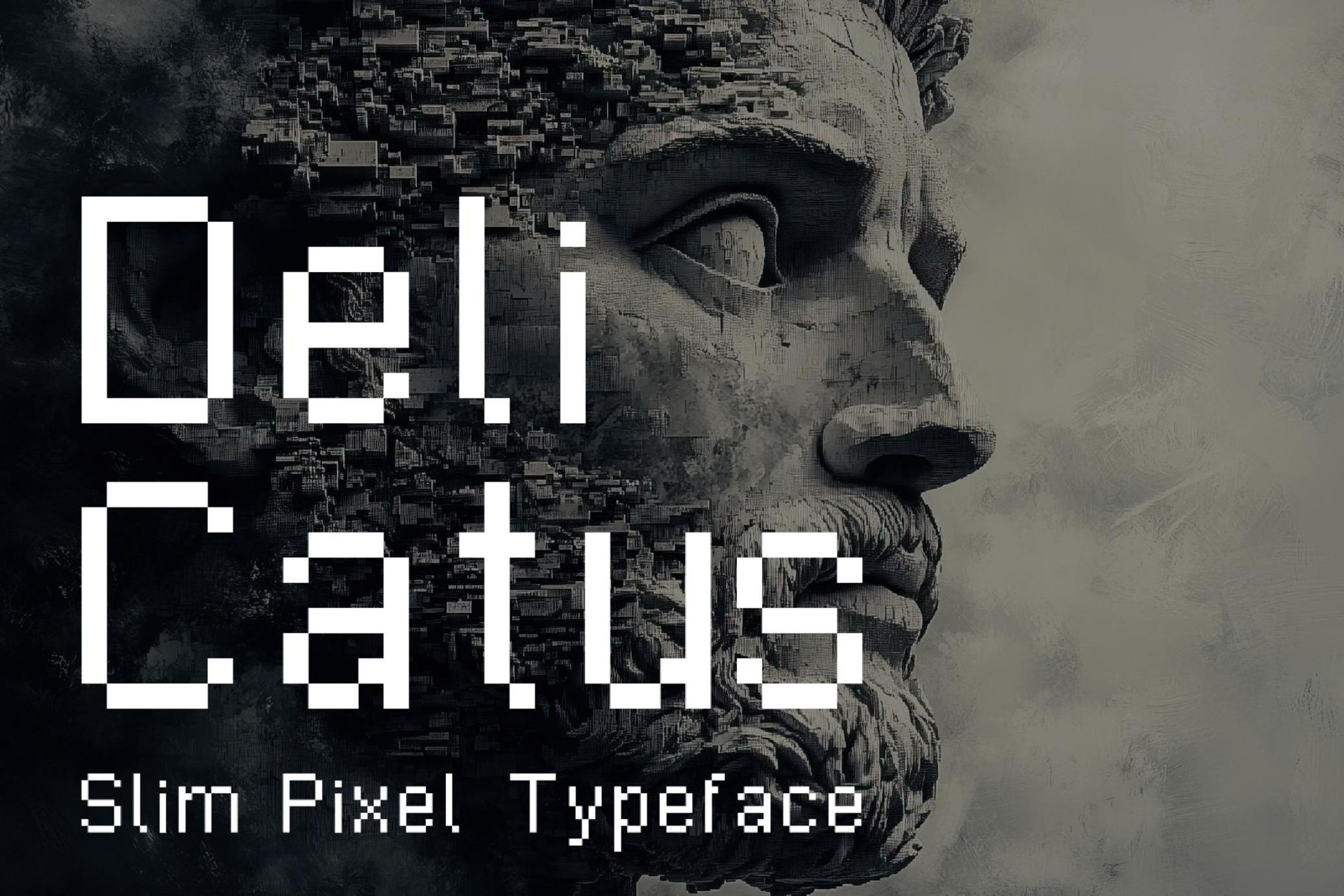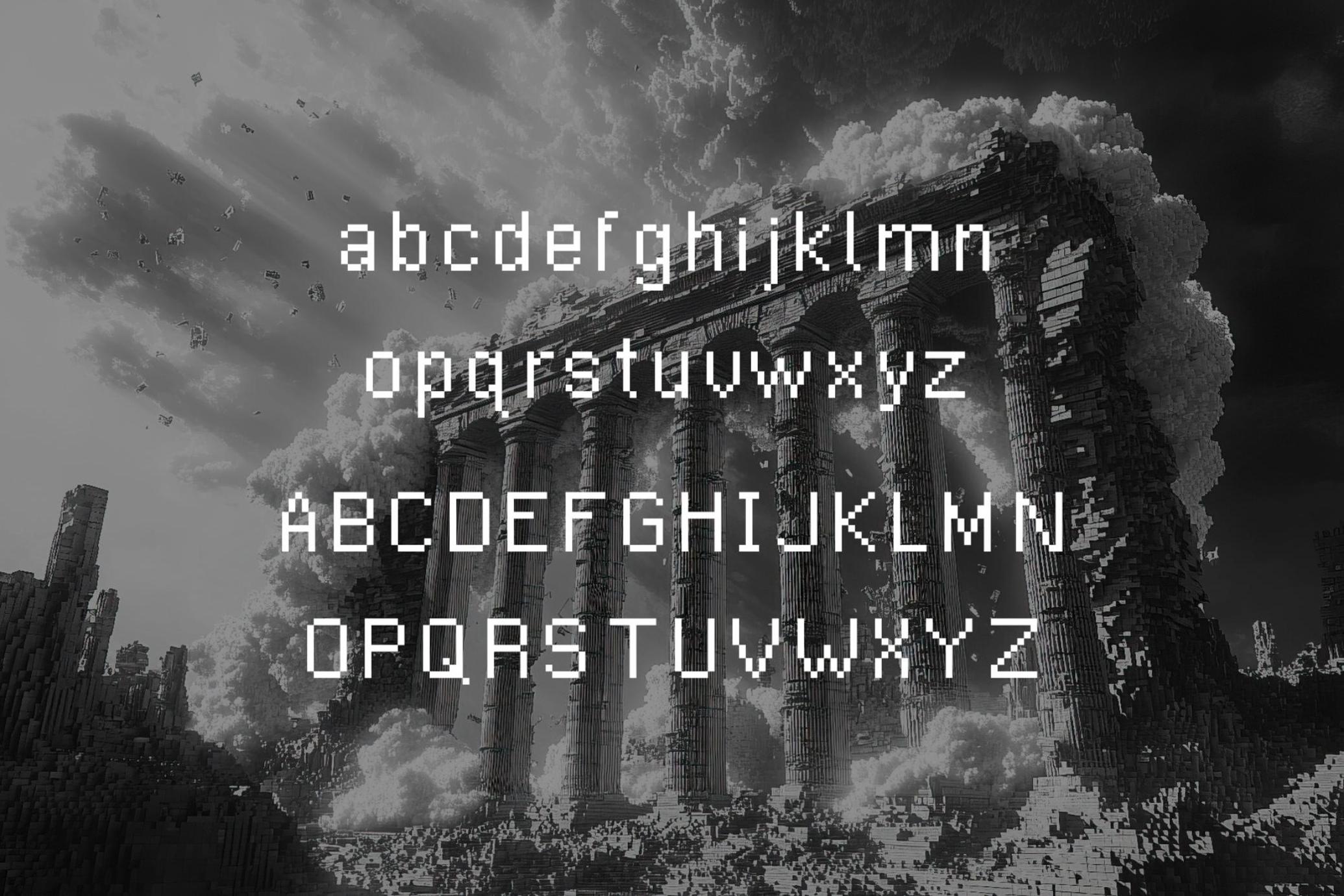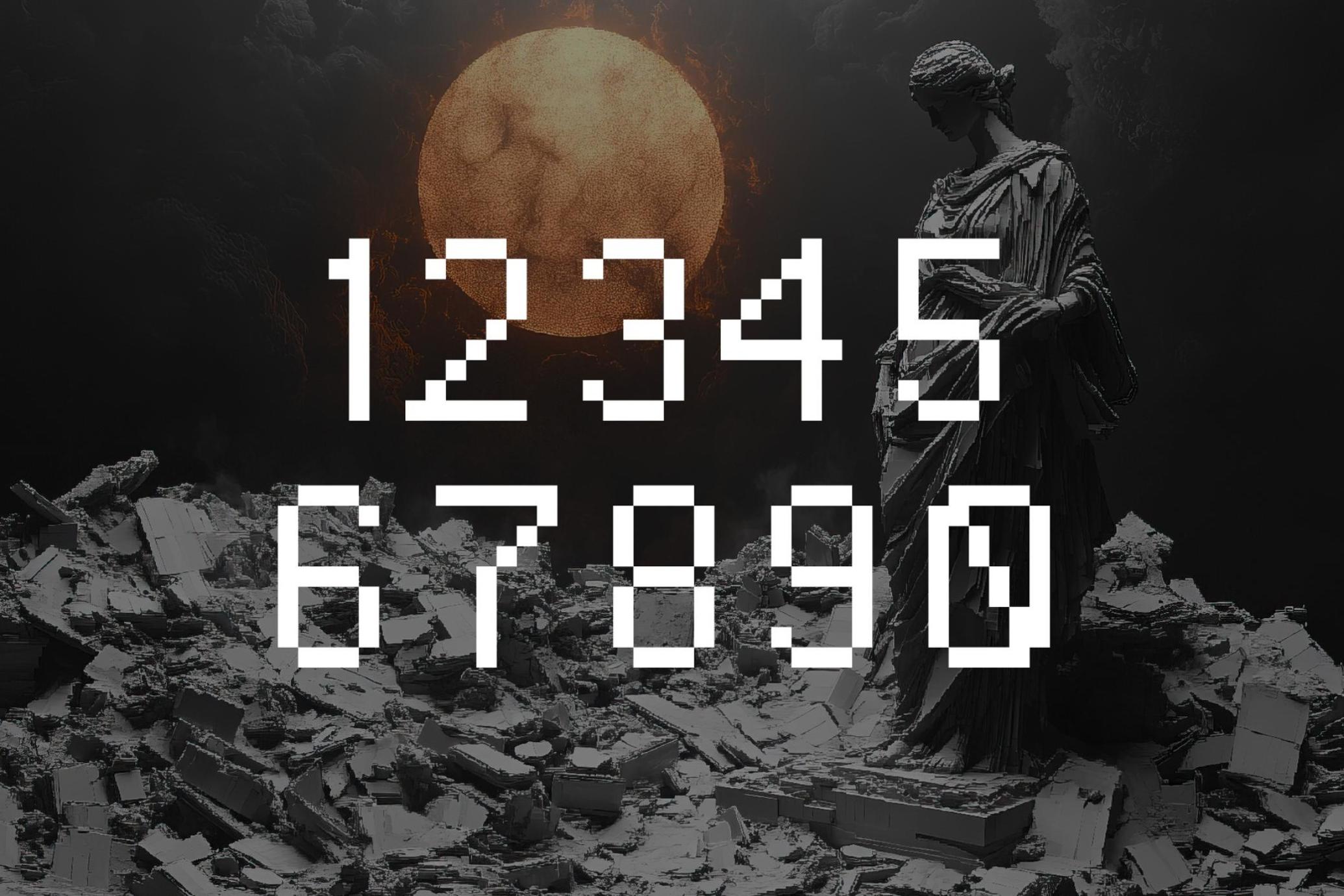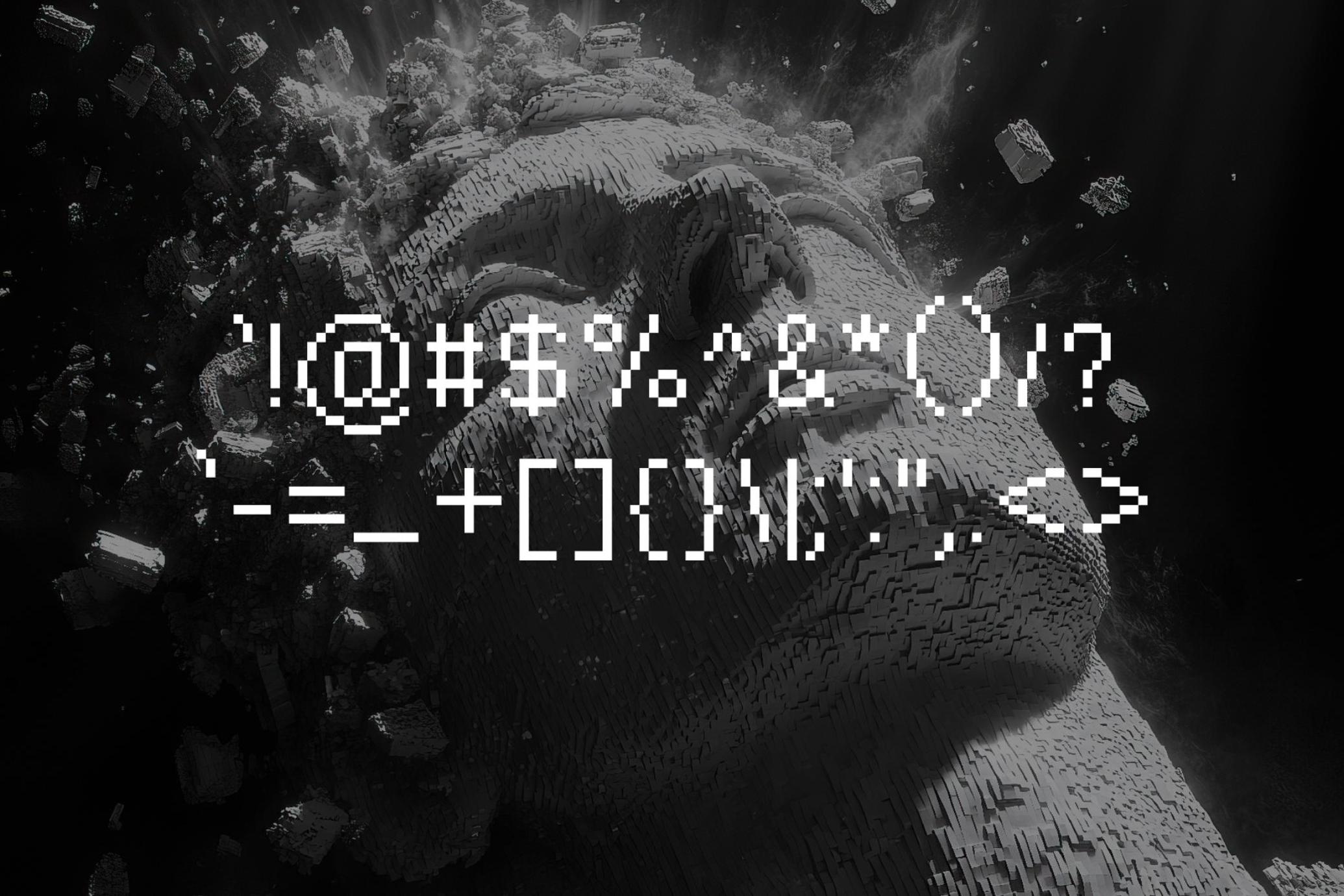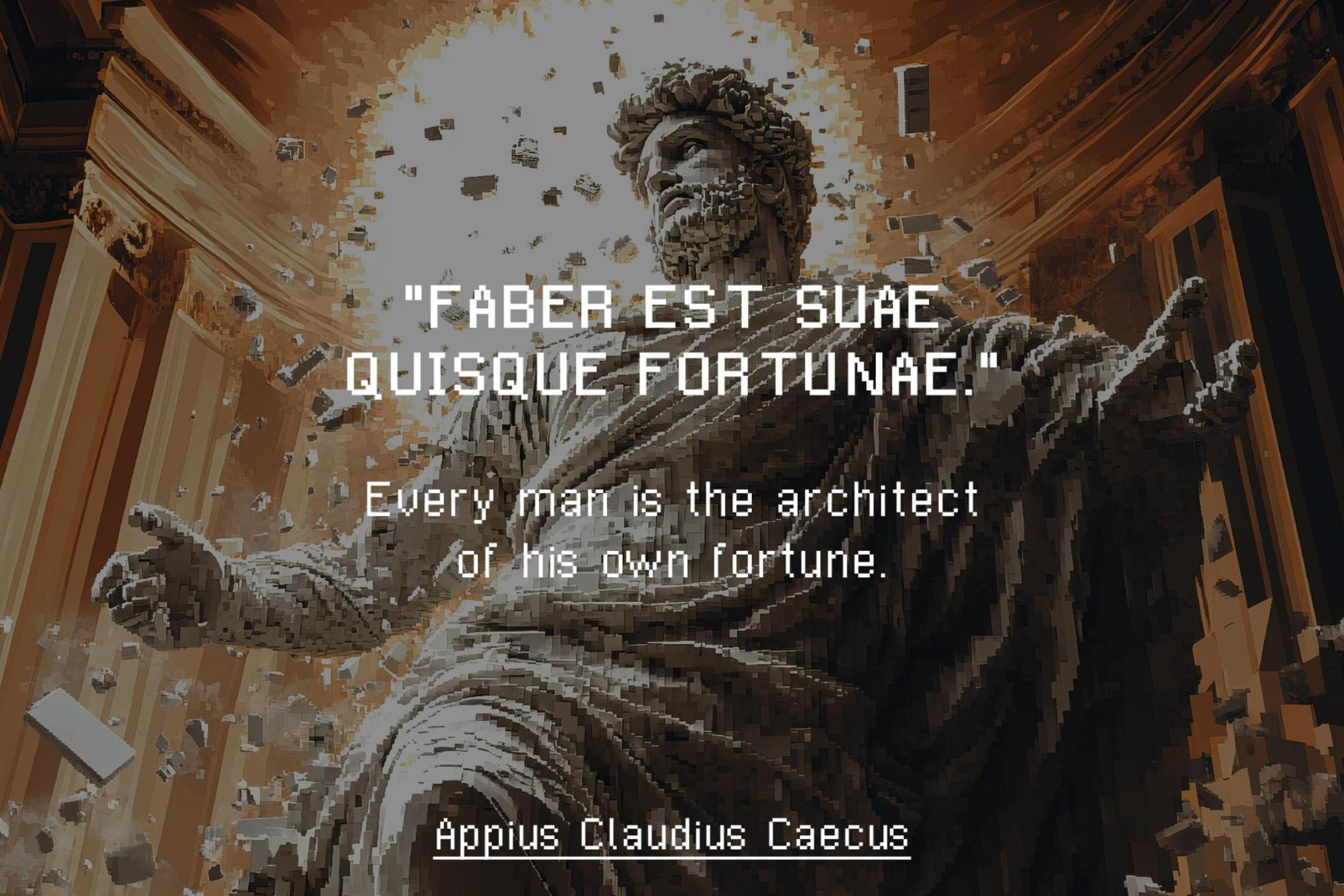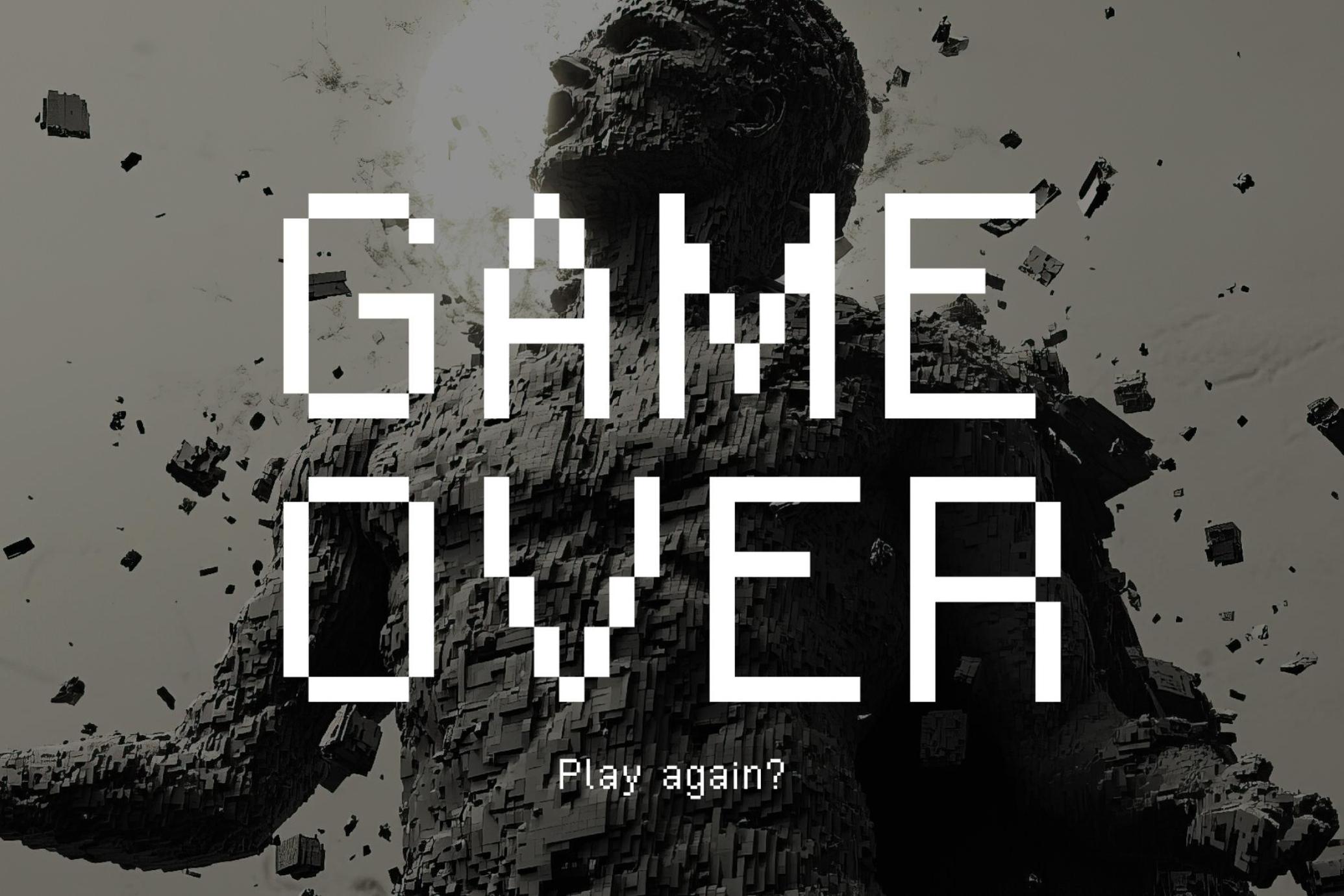
Delicatus - Slim Pixel Typeface
Step into the world of refined pixel perfection with Delicatus, a slim and elegant typeface that marries the charm of retro gaming with modern design sensibilities. Crafted with precision, Delicatus offers a minimalist pixel aesthetic that is both sleek and versatile, making it the perfect choice for projects requiring a clean, sophisticated look.
Whether you’re designing for digital interfaces, creating video game titles, or crafting eye-catching posters, Delicatus shines in its ability to balance simplicity with artistic flair. Its ultra-thin lines and pixel-perfect construction are a nod to classic Swiss design, reimagined in 8-bit style for the modern creative.